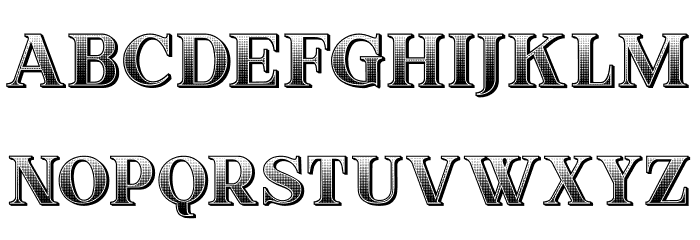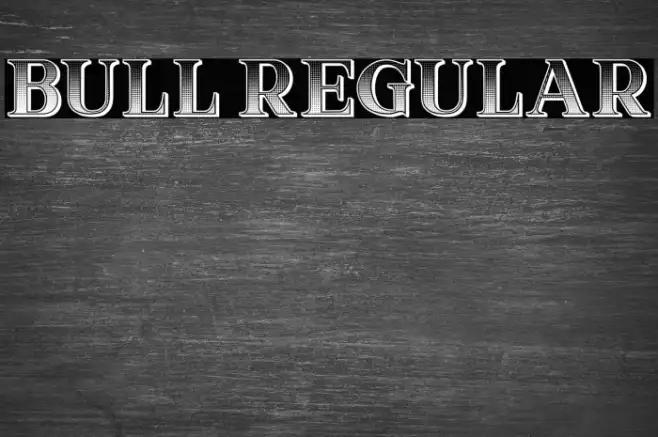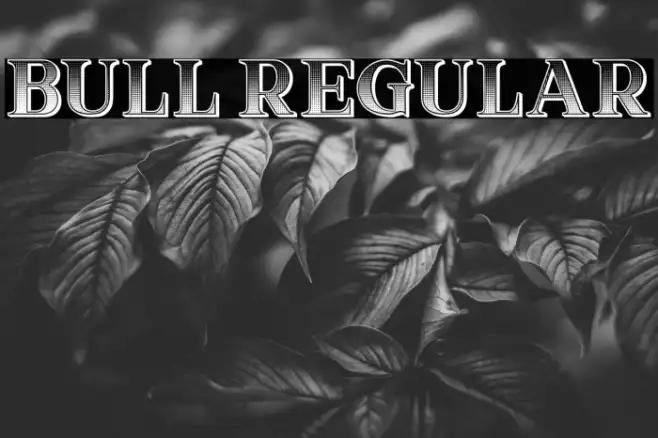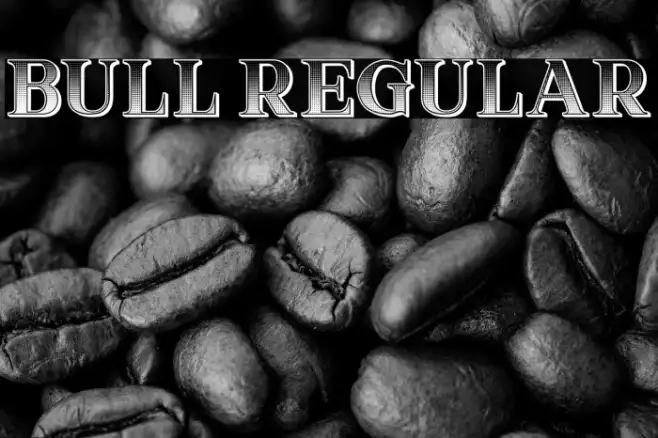
Bull Regular Font
This font features a bold and robust design with a distinct three-dimensional effect created by its shadowed outlines. The letters are capitalized and exhibit a strong presence, making them ideal for attention-grabbing headlines or titles. The intricate detailing within each character adds a layer of complexity and depth, enhancing its decorative appeal. The font's style is reminiscent of vintage signage, offering a nostalgic yet timeless aesthetic. Its structured form and bold weight ensure readability while maintaining a unique visual interest.
A bold, shadowed font with a vintage, decorative style.
- Font: Bull Regular
- Proposed Projects: Ideal for vintage-themed posters, signage, branding, and headlines that require a strong visual impact.
- Overall Style: Vintage